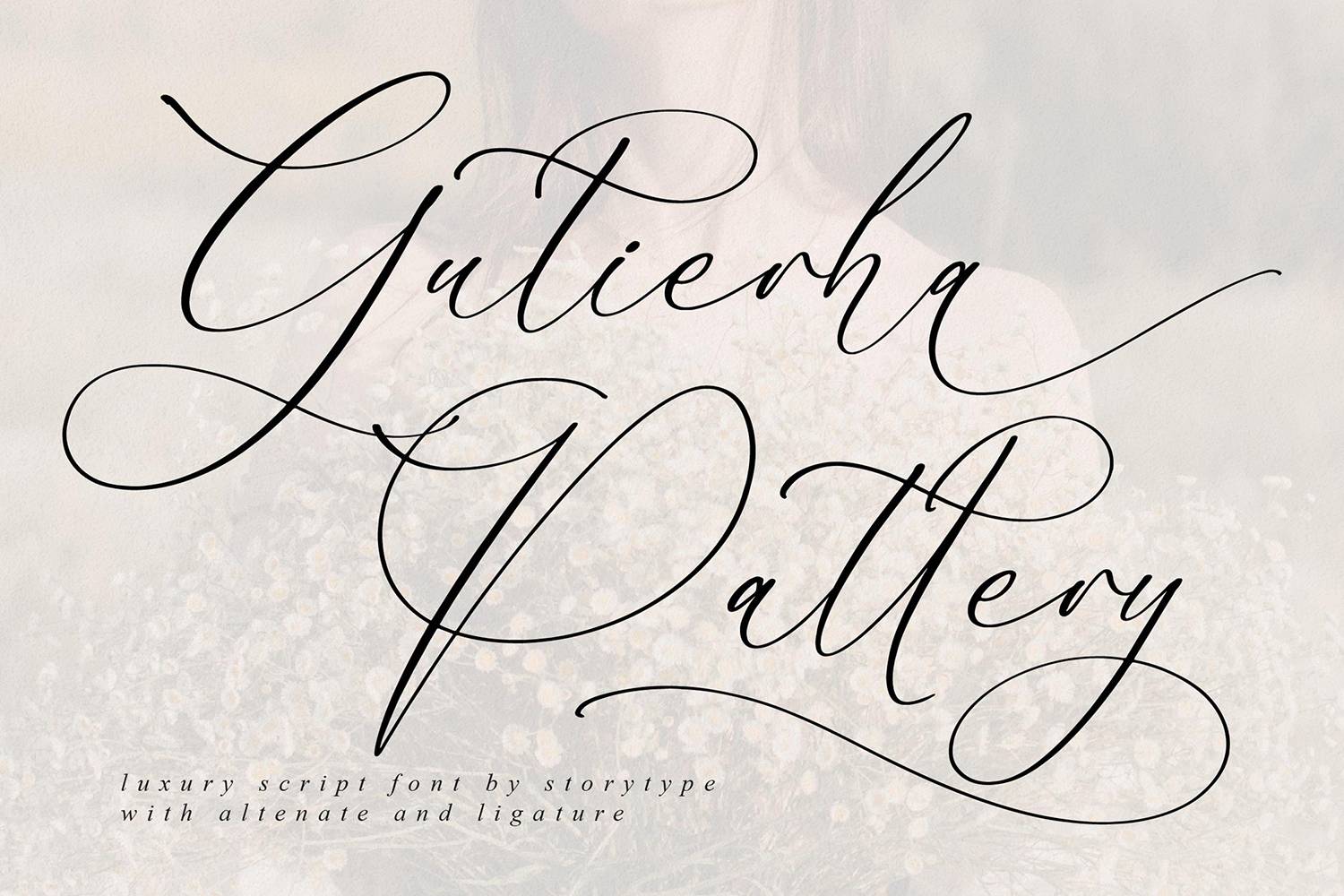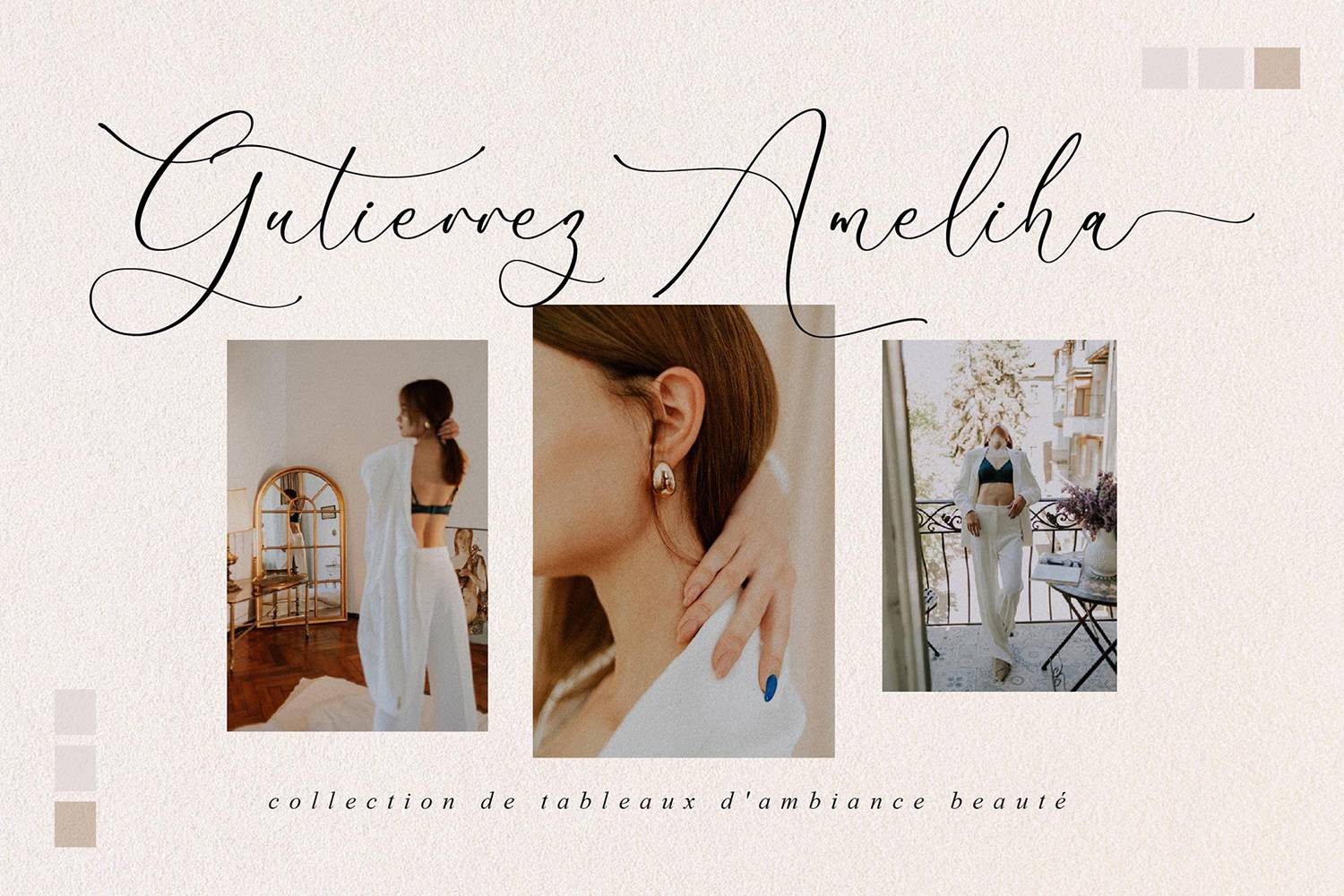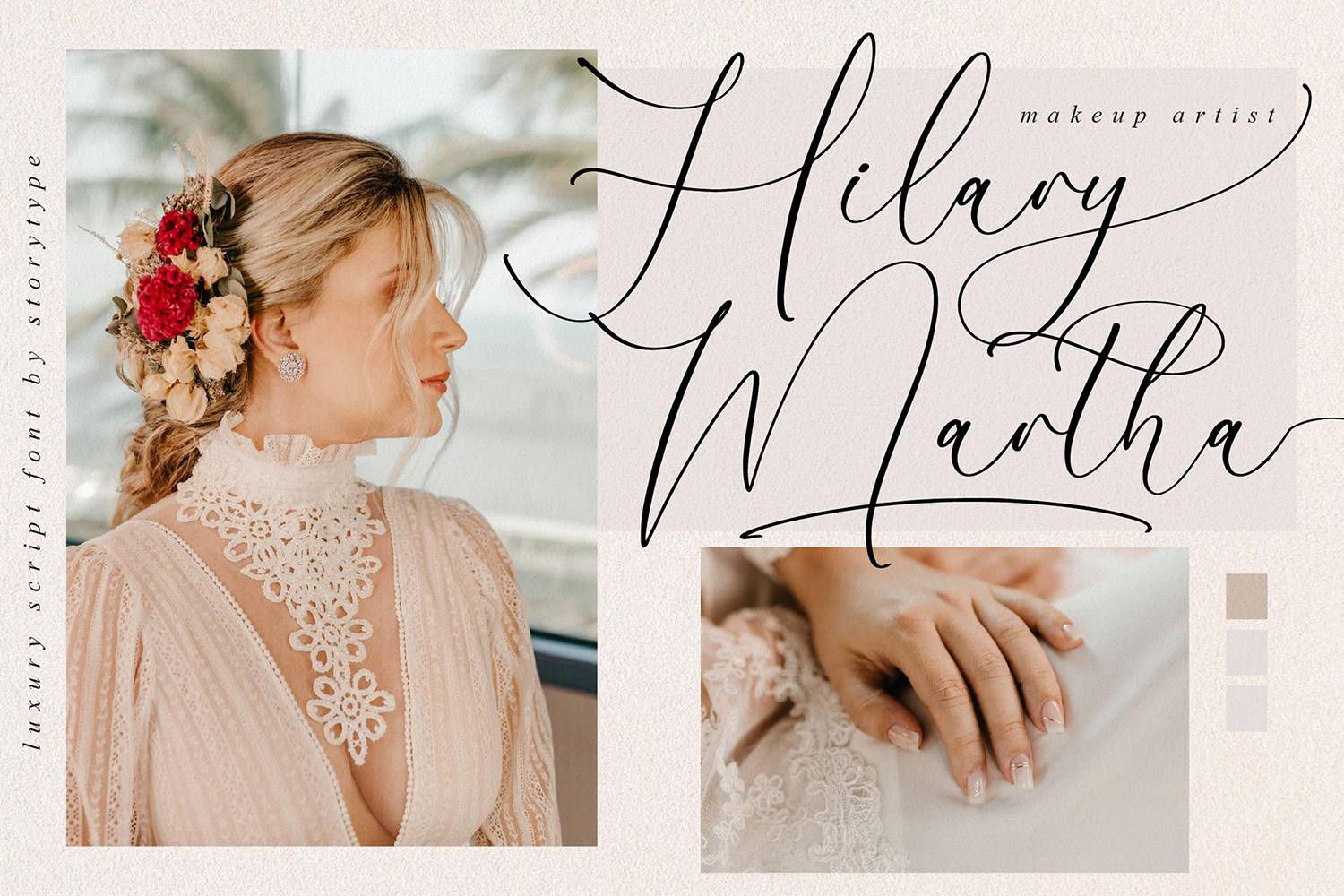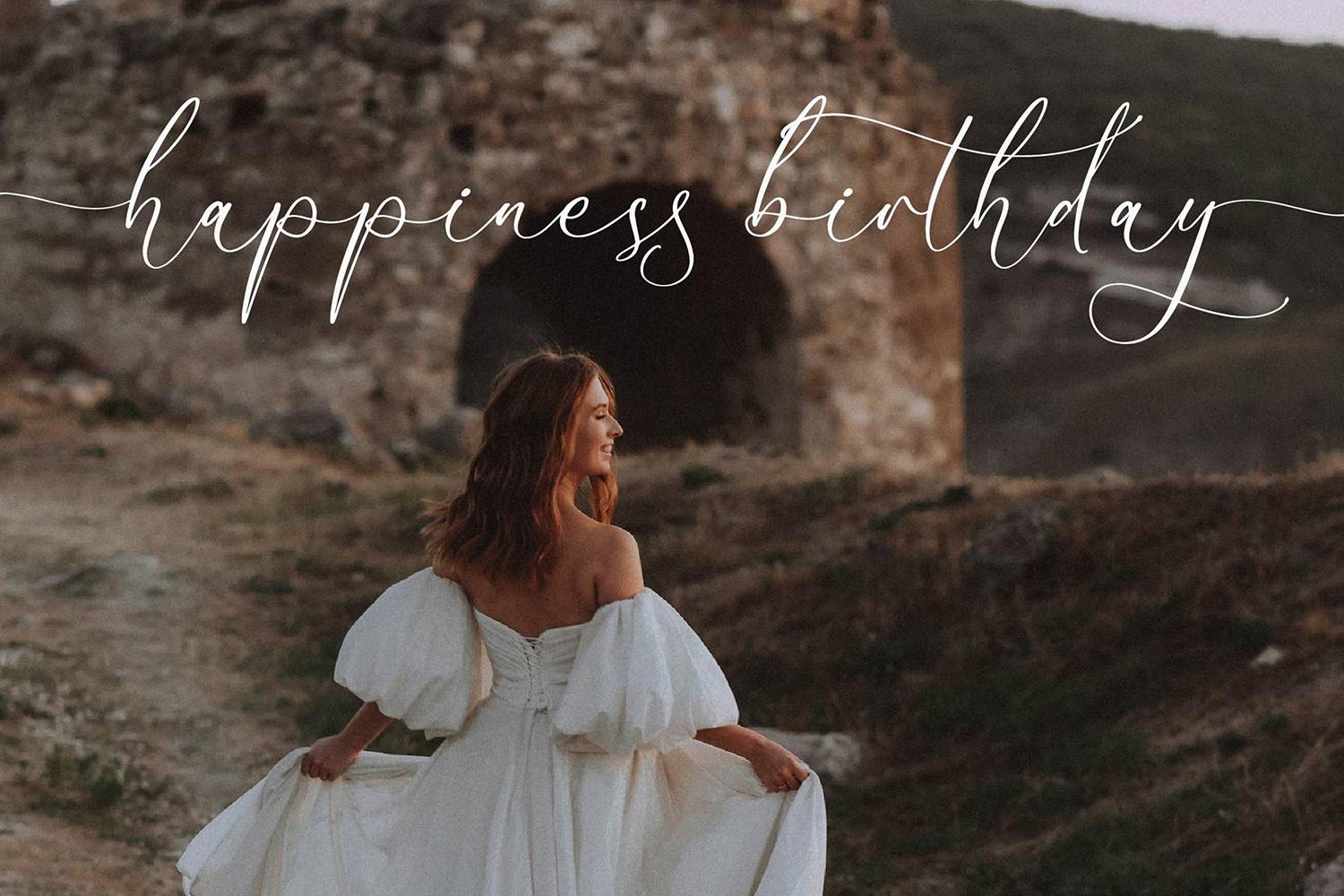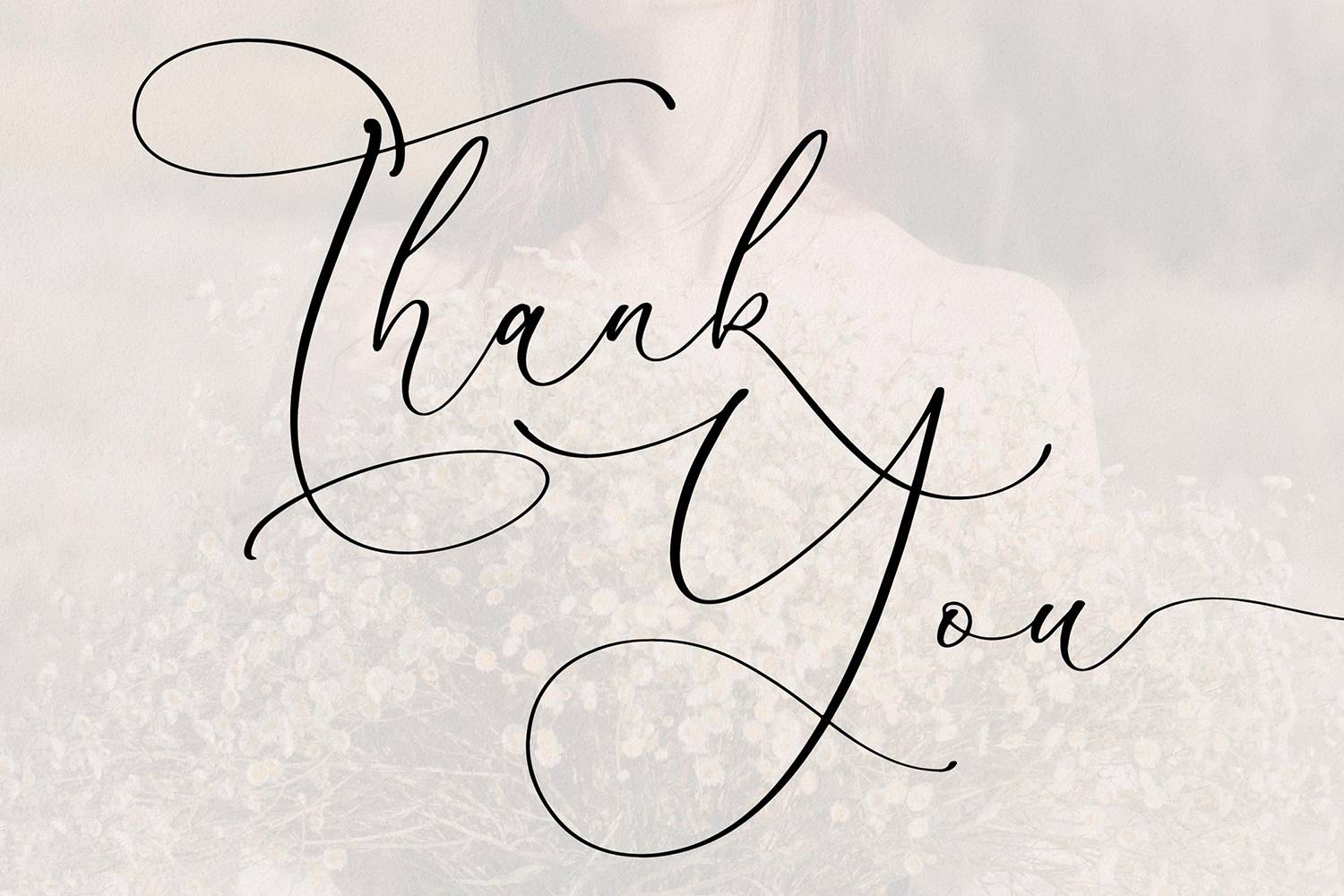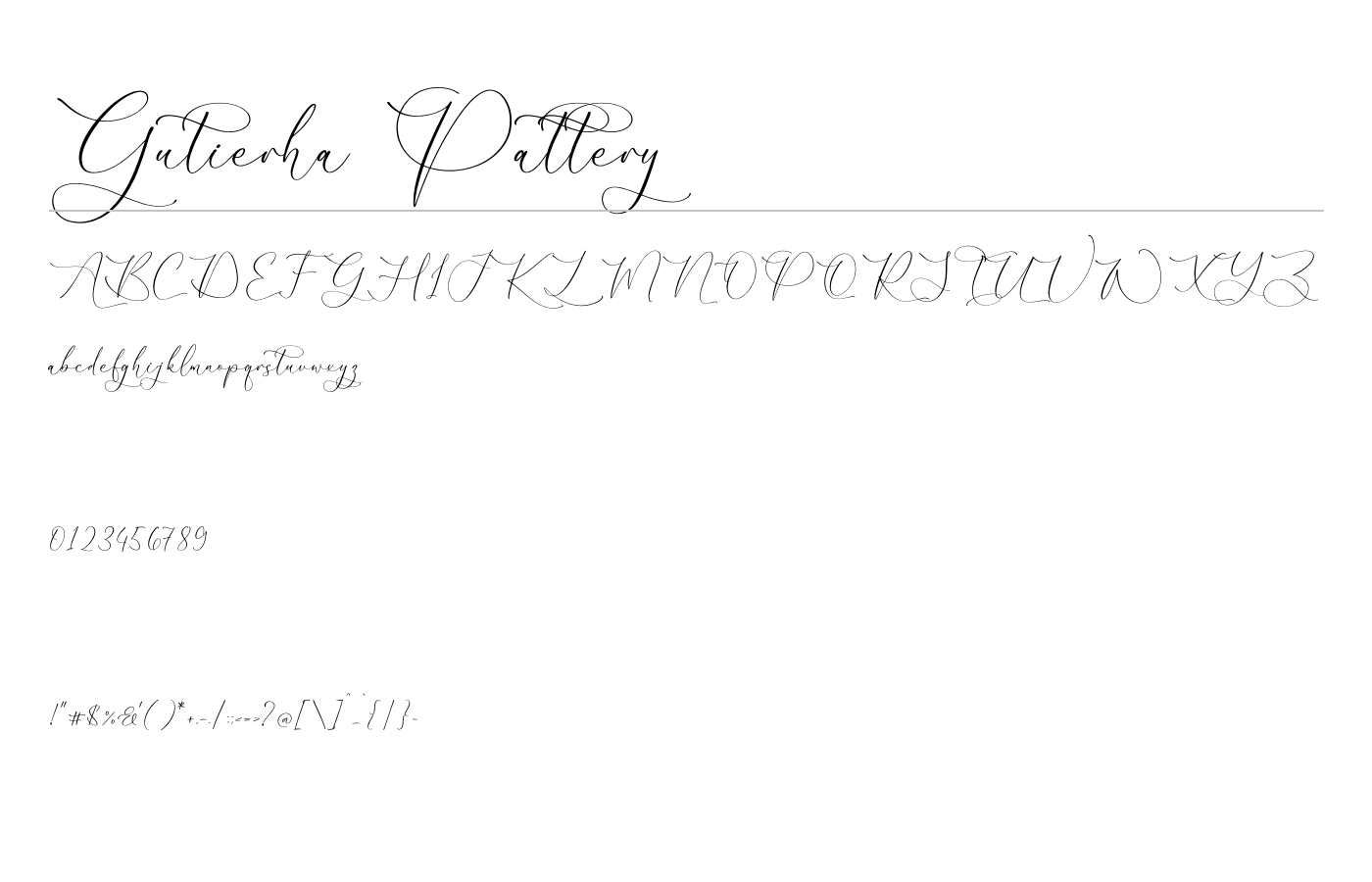
Gutierha Pattery is an elegant, thin-script font that features delicate, flowing strokes with intricate swashes, giving it a graceful and sophisticated feel. Its fine lines and decorative flourishes make it ideal for formal invitations, luxury branding, and stylish logos where a touch of refinement and creativity is desired. This font works best in large sizes to showcase its ornate details and add an artistic flair to any elegant design.
Gutierha Pattery Font
About Gutierha Pattery Font